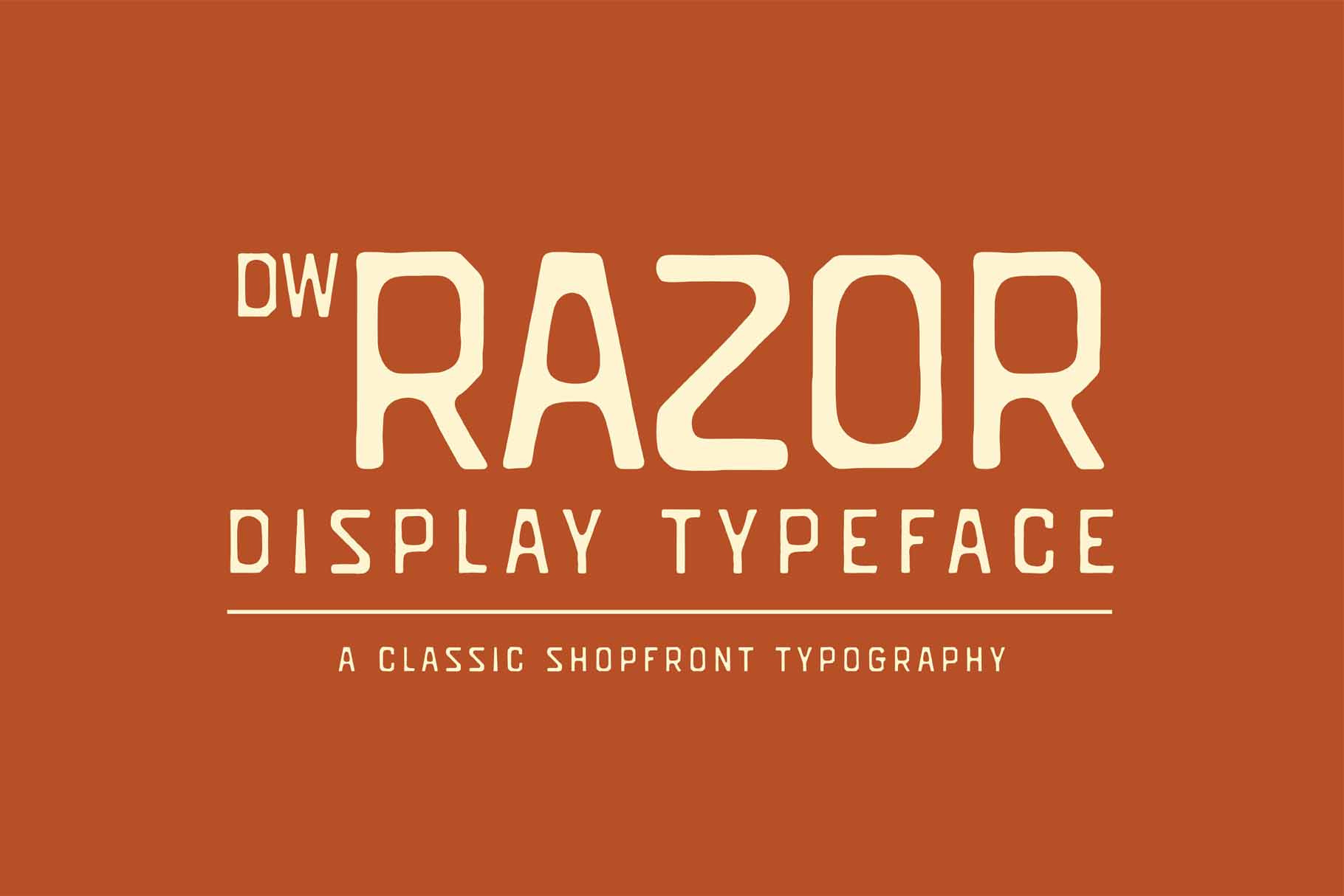
DW Razor Display Fonts
Razor is a striking display typeface inspired by vintage signage, particularly from the early 20th century. It features sharp, angular letterforms combined with elegant curves, reminiscent of hand-painted store signs, retro advertisements, and classic shopfront typography. With its strong geometric structure and high-contrast strokes, Razor embodies both a nostalgic and modern aesthetic, making it ideal for branding, posters, packaging, and editorial designs.